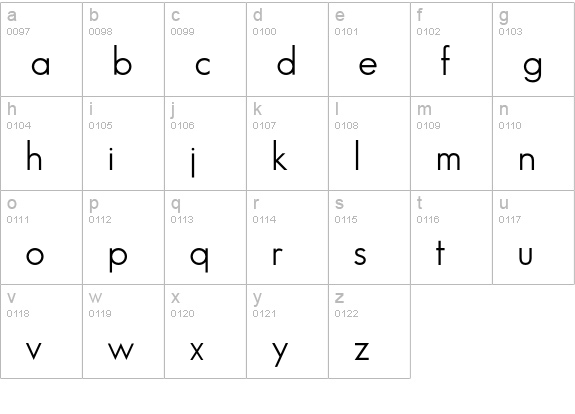
SansSerifBookFLF Font Details
SansSerifBookFLF is a versatile and elegant font that combines modernity with classic simplicity. Its clean lines and balanced proportions make it perfect for a wide range of design projects, from professional documents to creative artworks. This font is designed to be highly legible, ensuring that your message comes across clearly and effortlessly. Each letter is meticulously crafted, with careful attention to detail and spacing, resulting in a harmonious and pleasing visual experience. What sets SansSerifBookFLF apart is not just its exceptional design, but also the fact that it is freely available to download. Yes, you heard it right - this font can be yours at no cost. Thanks to FontsMarket.com, you can easily access and download SansSerifBookFLF without any restrictions or hidden fees. Whether you are a professional designer, a student working on a project, or simply someone who appreciates good typography, SansSerifBookFLF is a font that you can rely on. Its versatility, elegance, and the fact that it is free make it an invaluable addition to your font library. So why wait? Go ahead and give SansSerifBookFLF a try today!